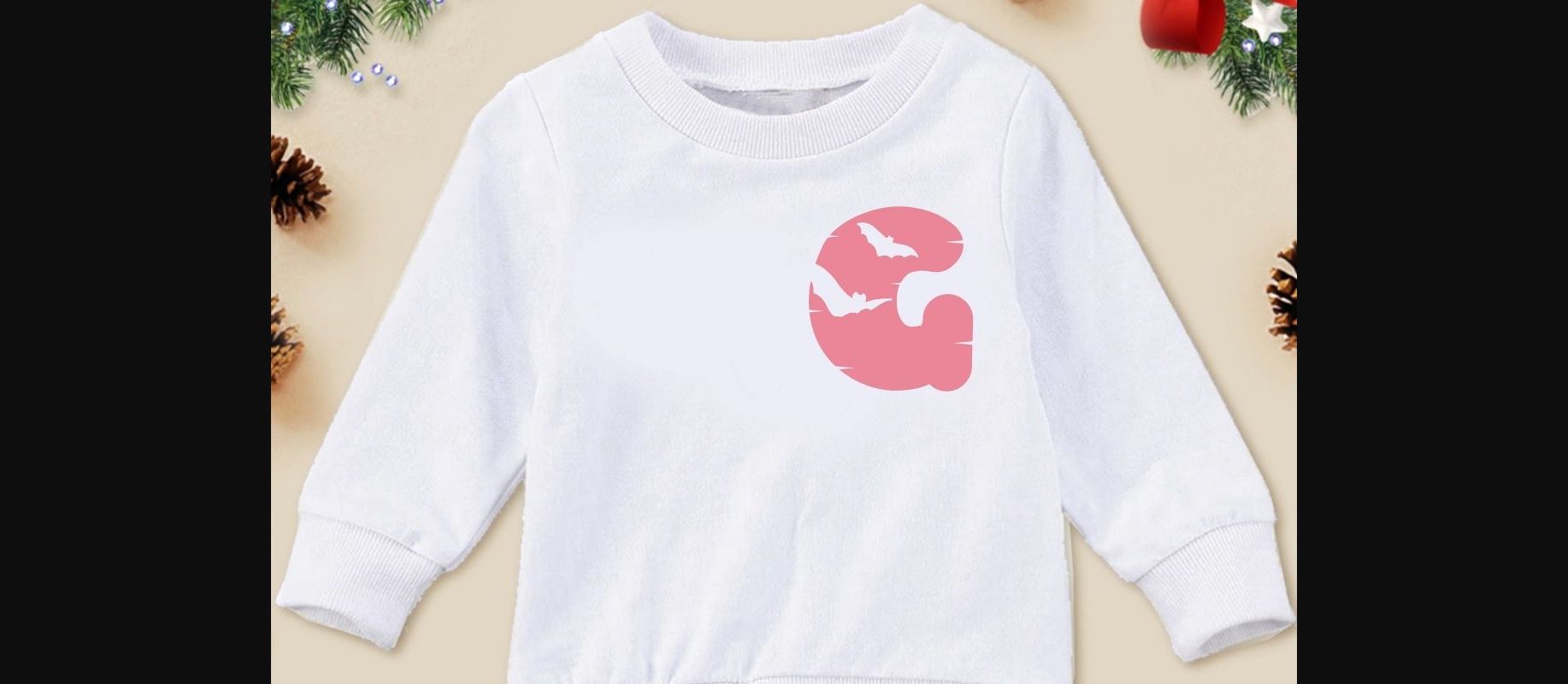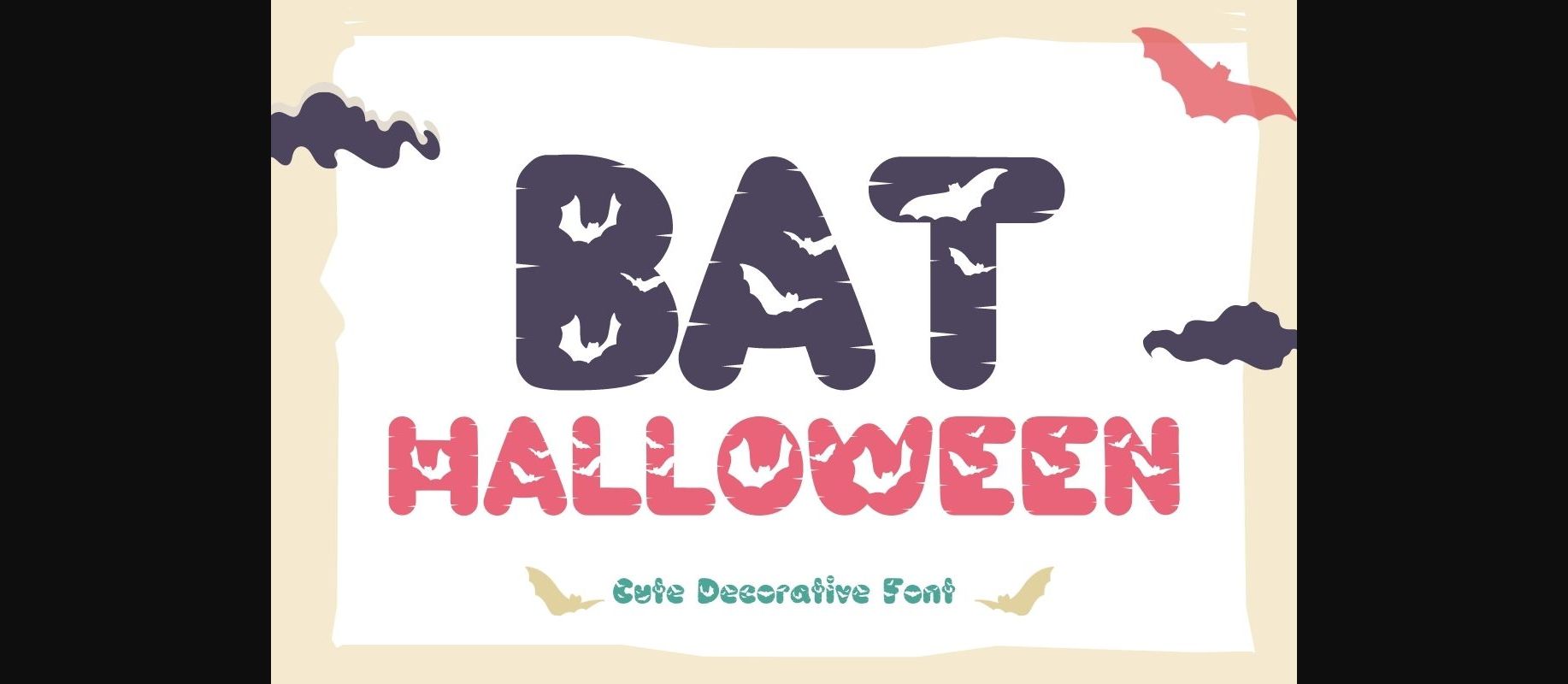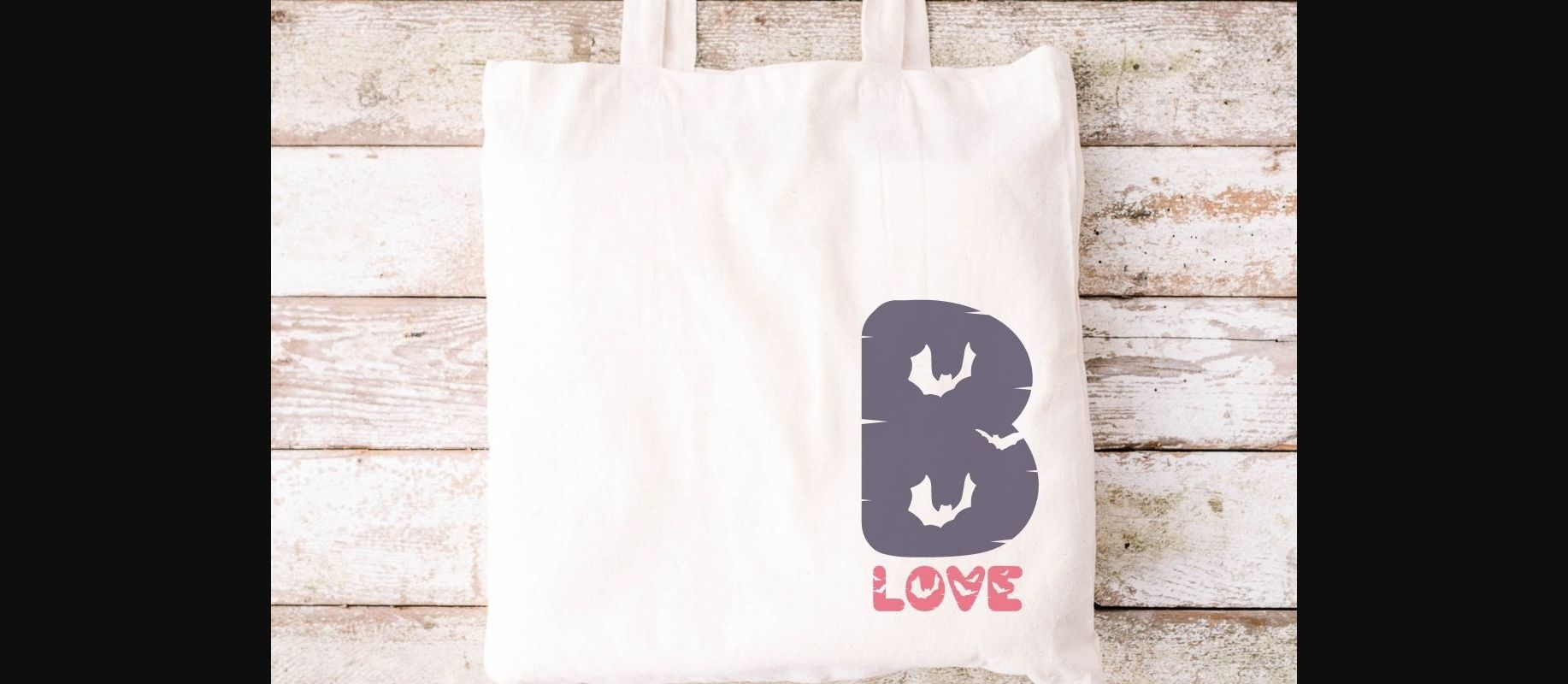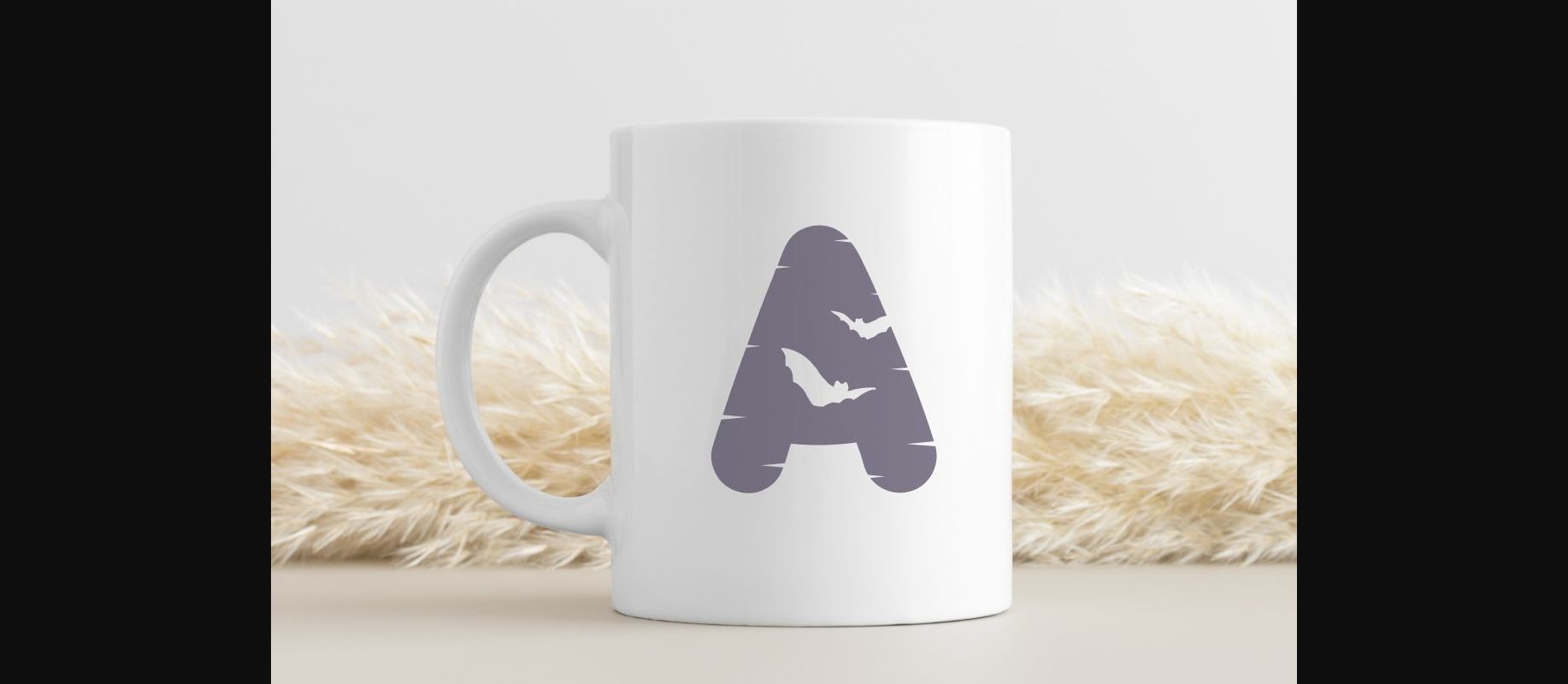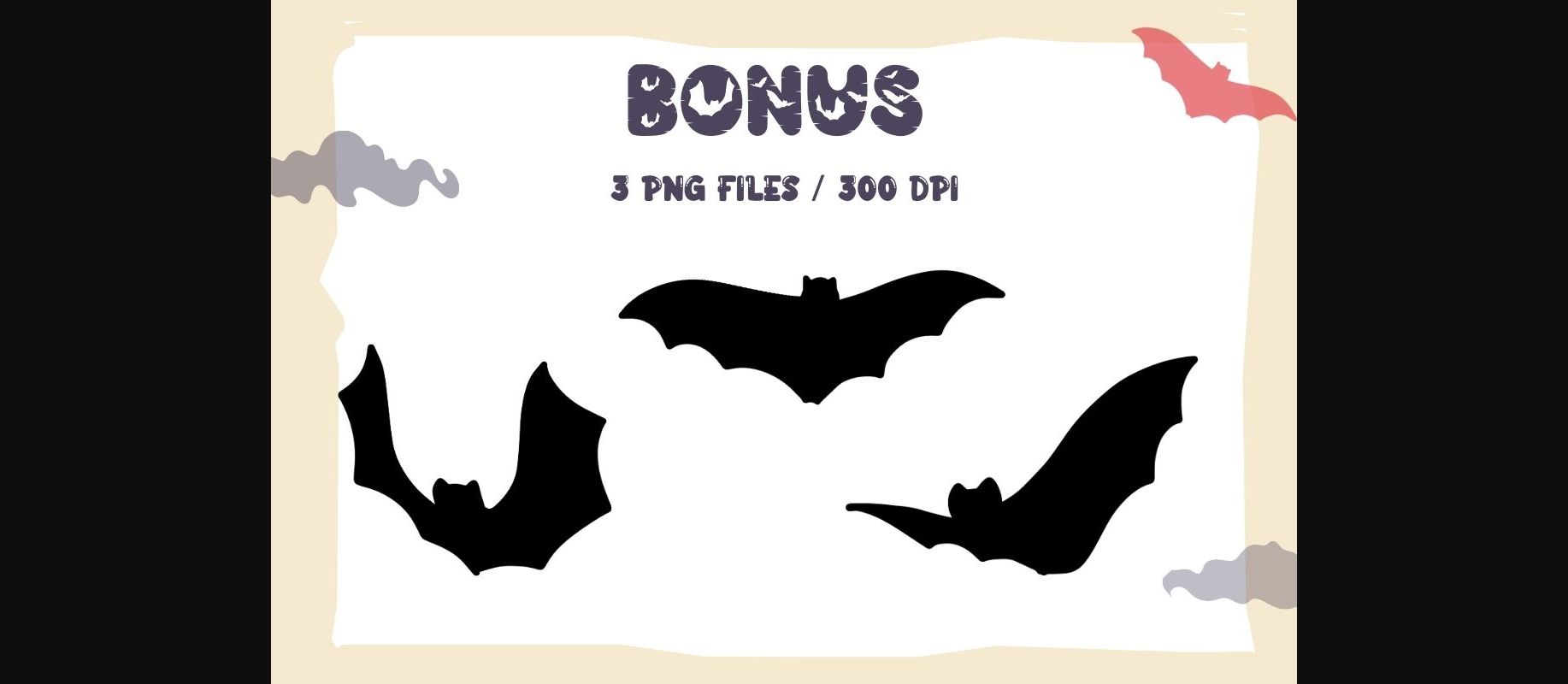
About Bat Halloween Font
Bat Halloween is a fun and cute decorative font. This font uses multiple cute bat silhouettes combined with bold letters, which makes it perfect for all your Halloween or horror-themed projects.